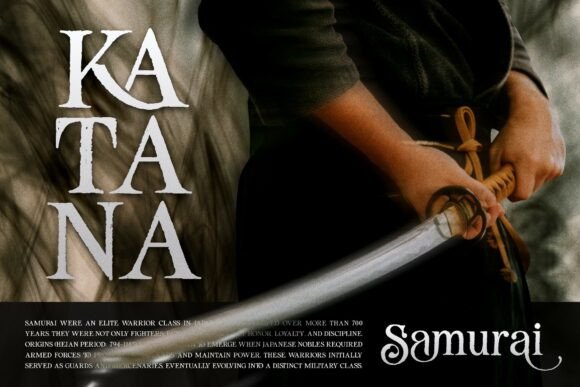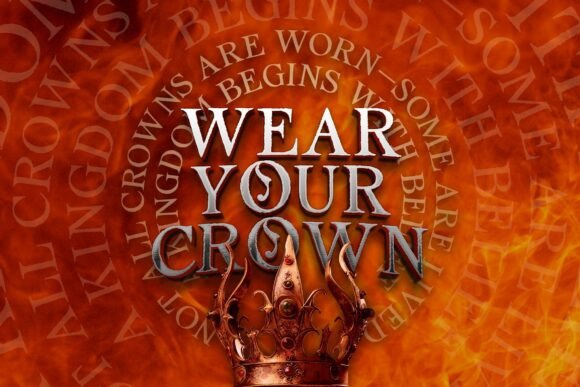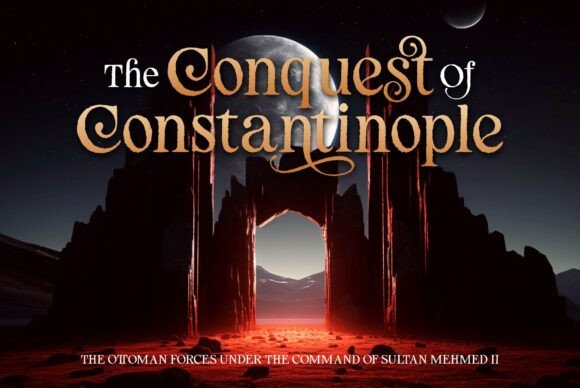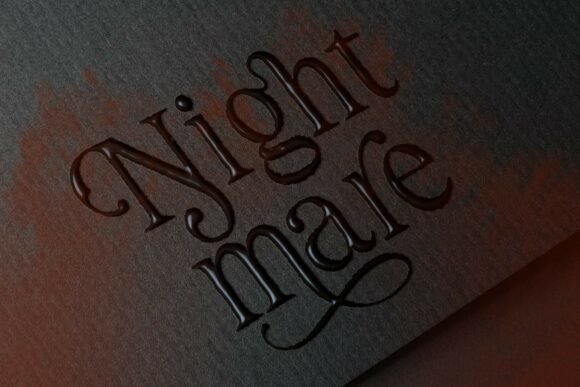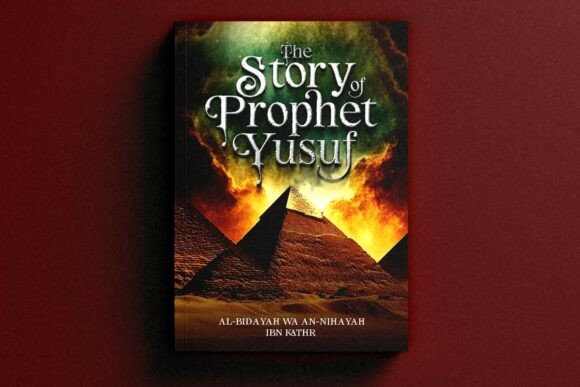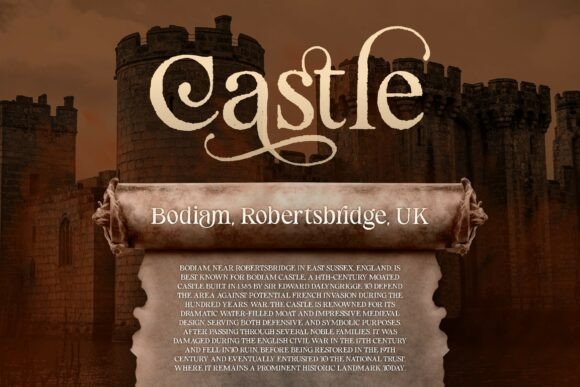
Unlocking the Power of the Past: An Introduction to Overlad Kingdom Font
Imagine yourself standing before a grand, ancient castle, the wind whispering through its crumbling stones as the setting sun casts a warm, golden glow. It’s moments like these that inspire us to create something truly timeless – a design that echoes the grandeur of old empires and legendary kingdoms. And that’s exactly what the Overlad Kingdom Font offers: a rich, ornate typeface that captures the essence of a bygone era.
For designers seeking to add a touch of sophistication and history to their creative projects, the Overlad Kingdom Font is a valuable resource. With its classic serif structures and bold, ornate details, this high-quality font is perfect for crafting compelling headlines, titles, or even entire branding identities. And with a free download available, designers can access this design resource without breaking the bank – making it an ideal choice for projects where every detail matters.
Key Features of Overlad Kingdom Font
- Unique, fantasy-inspired design elements that can add a touch of magic to any creative project
Honest Review: Overlad Kingdom Font
I recently stumbled upon the Overlad Kingdom Font, a free download that has been making waves in the design community. As a designer, I was eager to put it to the test and see if it lived up to the hype.
First impressions are everything, and I have to say that the Overlad Kingdom Font delivers. The font is a high-quality, intricately designed script that’s perfect for adding a touch of elegance to your creative project. ✨ The font’s transparent background makes it incredibly versatile, allowing you to pair it with any design element without worrying about clashing colors.
Here are a few things that work well with the Overlad Kingdom Font:
- Its ability to add a sense of sophistication to any design
- Its high level of customization, making it perfect for branding and logo design
- Its seamless integration with other design elements
However, I do have a few gripes with the Overlad Kingdom Font:
- ⚠️ It’s a bit limited in terms of font sizes, making it challenging to use in larger or smaller designs
- ⚠️ The font can be a bit overwhelming if used excessively, so be sure to use it sparingly
Overall, I’m thoroughly impressed with the Overlad Kingdom Font. While it’s not perfect, its unique design and high-quality features make it a valuable addition to any design resource. If you’re looking to add some flair to your next creative project, the Overlad Kingdom Font is definitely worth checking out.
Tips for Getting the Most Out of Overlad Kingdom Font
Experiment with different font sizes, colors, and styles to achieve the desired look for your creative project. You can also use the font in combination with other design elements to create a unique and eye-catching design.
The Overlad Kingdom Font is perfect for use in logos, branding materials, and other creative projects that require a high-quality, unique font. Its transparent background makes it ideal for use in designs with complex backgrounds.